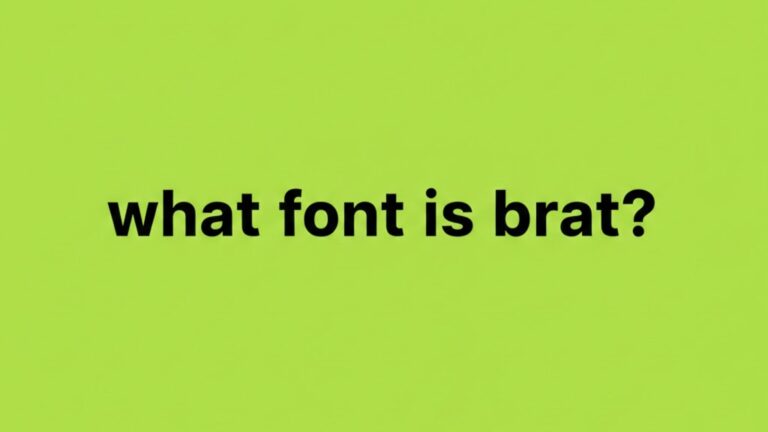
Looking to create bold, expressive, and aesthetic brat-style typography? A Brat Font Generator allows you to instantly convert normal text into stylish brat-inspired fonts that you can copy and paste anywhere — from album covers to memes and wallpapers.At BratGen, we focus on making brat-style text creation simple, fast, and visually consistent for modern creators.
Unlike regular text tools, brat-style fonts focus on strong visual identity, bold letterforms, and minimal yet edgy aesthetics inspired by modern pop and internet culture.
In this guide, you’ll learn how brat font styles work, how to generate them, and where to use them effectively.
What Is a Brat Font?
A brat font refers to a bold, minimal, high-contrast typography style often associated with:
- Bright green or high-impact backgrounds
- Strong sans-serif lettering
- Clean but expressive layouts
- Album-style typography
It’s less about decorative letters and more about attitude, contrast, and aesthetic impact.
How a Brat Font Generator Works
A brat font generator transforms standard text into styled typography using:
- Unicode character variations
- Bold and stylized letterforms
- Spacing manipulation
- Visual emphasis techniques
Instead of manually designing text in graphic software, you can:
- Enter your text
- Choose a brat font style
- Copy and paste instantly
Copy and Paste Brat Font Styles
One of the biggest advantages of using a brat font generator is convenience. You can instantly create:
- Brat bold font variations
- Aesthetic brat style font text
- Custom brat font designs
- Meme-ready typography
- Album-style headings
Once generated, the text can be used on:
- Instagram bios
- TikTok captions
- YouTube thumbnails
- Meme graphics
- Wallpapers
- Profile names
This eliminates the need for external editing tools while still giving you a unique visual identity.
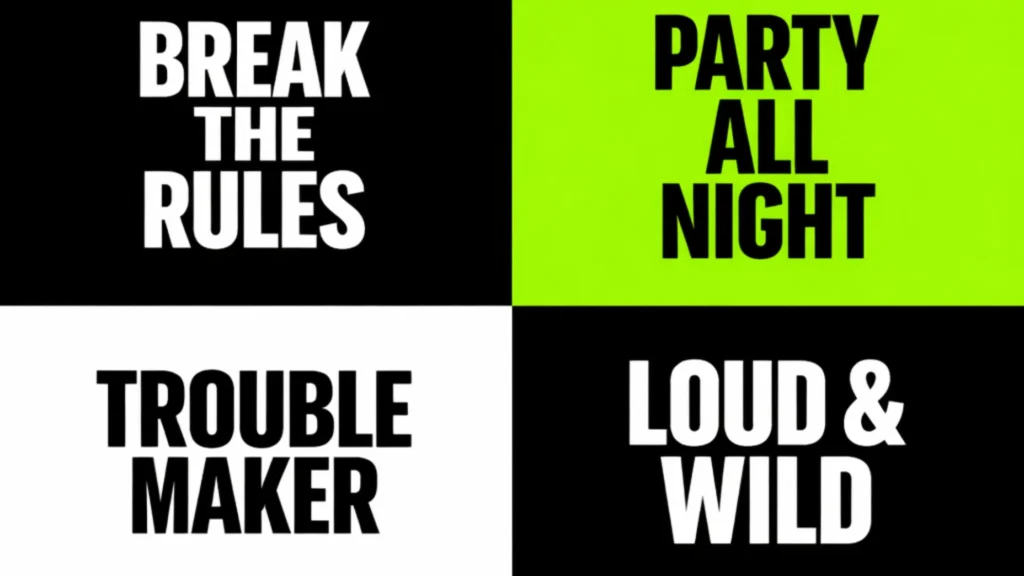
Brat Aesthetic Typography Explained
Brat typography follows a very specific visual logic influenced by modern branding trends and modern typography principles.:
- Bold uppercase letters
- Minimal decoration
- Strong spacing
- High contrast color combinations
- Clean layout structure
Unlike decorative cursive or fancy script fonts, brat aesthetic font styles are meant to be loud, confident, and instantly recognizable.
How to Create a Custom Brat Font Look
If you want a more personalized approach, you can:
- Adjust spacing between letters
- Experiment with all caps
- Use bold formatting
- Combine text with minimalist backgrounds
- Apply strong contrast color schemes
For visual compositions, many creators combine styled typography with album-style layouts. You can also explore our Brat Album Cover Generator to see how brat font styles are used in design formats.
Brat Font for Memes and Social Media
Brat-style typography works exceptionally well in meme culture because:
- It grabs attention instantly
- It creates a strong visual identity
- It aligns with modern internet aesthetics
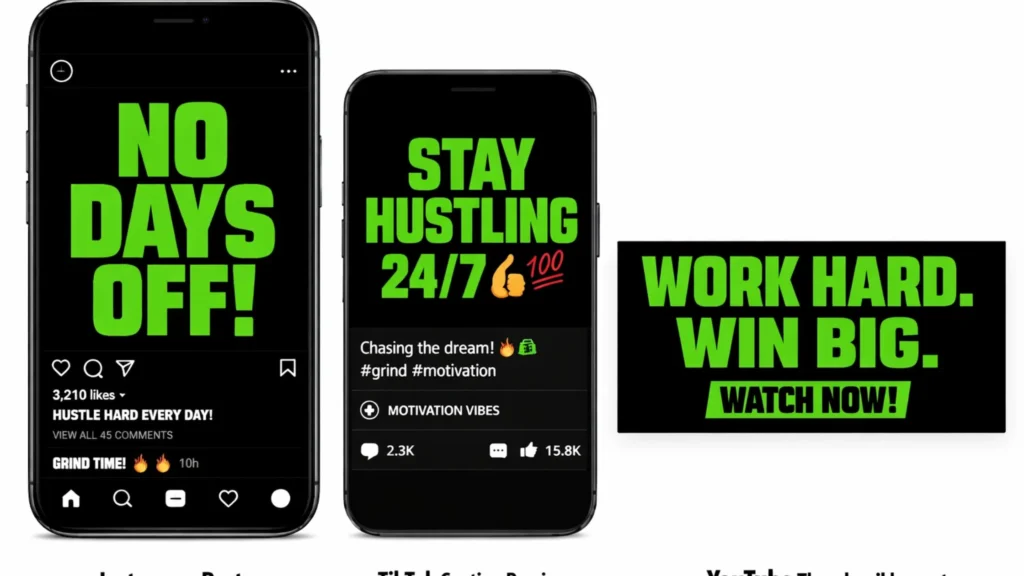
✔ Instant copy & paste
✔ Mobile-friendly
✔ Works for captions, bios, and artwork
✔ Supports creative experimentation
It saves time while maintaining strong branding.
SEO & Branding Advantage of Brat Fonts
From a branding perspective, brat-style typography helps:
- Maintain visual consistency
- Strengthen online identity
- Increase recognition across platforms
- Stand out in crowded feeds
Because brat fonts emphasize bold simplicity, they perform well on social media thumbnails and wallpapers where readability matters.
Frequently Asked Questions
What is a brat font style?
It’s a bold, minimalist typography style inspired by modern album aesthetics and internet culture.
Can I copy and paste brat fonts?
Final Thoughts
Brat-style typography is more than just text styling — it’s about visual confidence. A Brat Font Generator gives you the power to create expressive, bold, and aesthetic text instantly without needing professional design tools.
Whether you’re creating memes, album covers, or personal branding content, brat fonts help you maintain a distinctive and modern look.